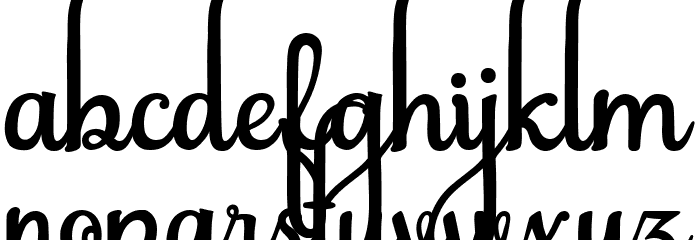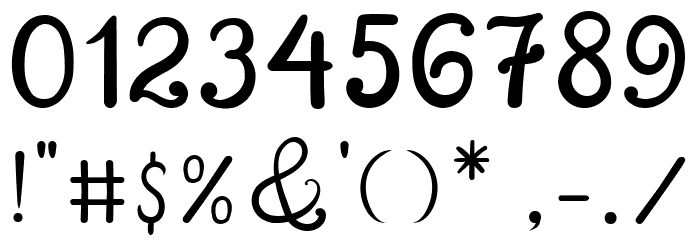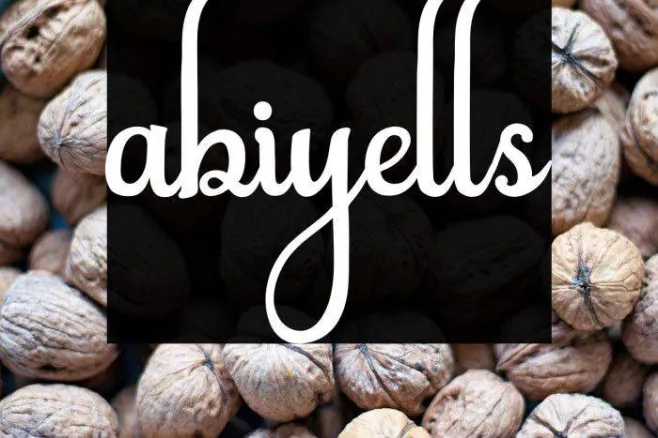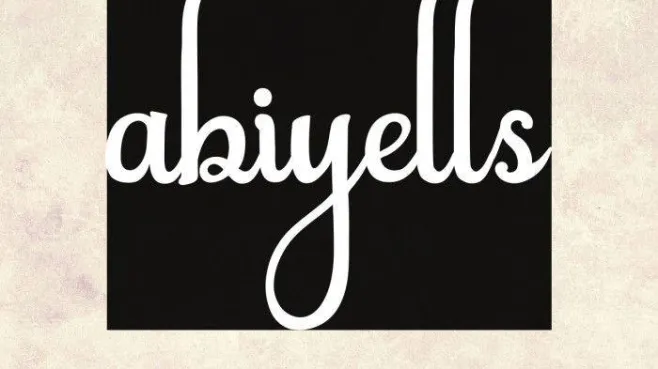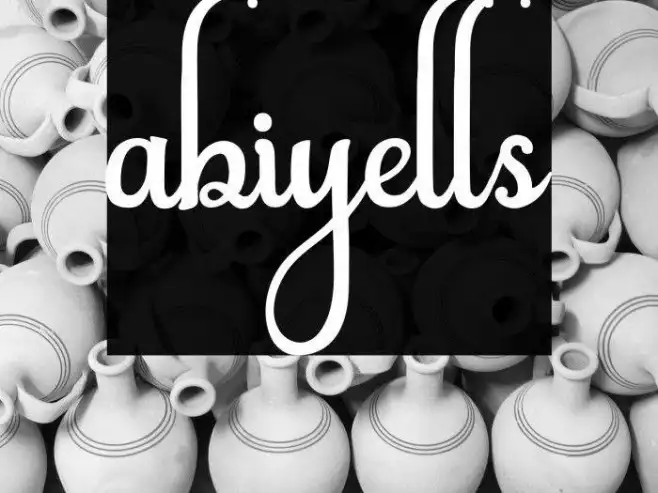
abiyells Font
This font features a playful and decorative style with a whimsical flair. The uppercase letters have unique curls and loops, adding a sense of elegance and creativity. The lowercase letters maintain a consistent flow, complementing the uppercase with their rounded forms. Numbers are bold and clear, ensuring readability while maintaining the font's artistic nature. Special characters are designed with the same attention to detail, making them suitable for various creative applications. The overall design is both eye-catching and functional, perfect for projects that require a touch of personality and charm.
A playful, decorative font with whimsical curls and loops.
- Proposed Projects: Ideal for greeting cards, invitations, posters, and branding materials that require a creative and elegant touch.
- Use Case: Headlines, Logos, Invitations